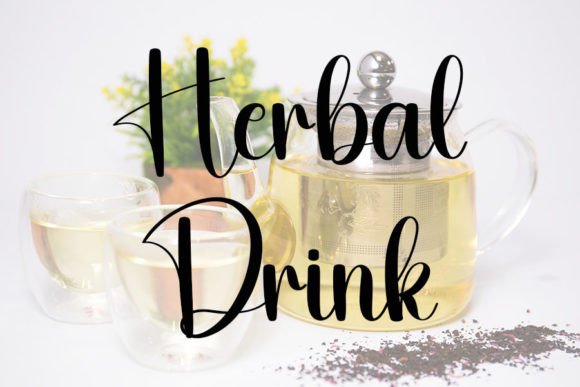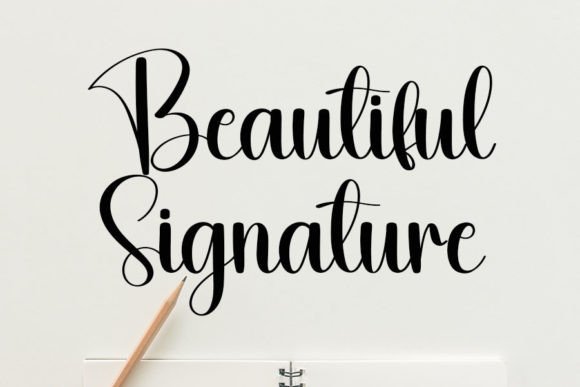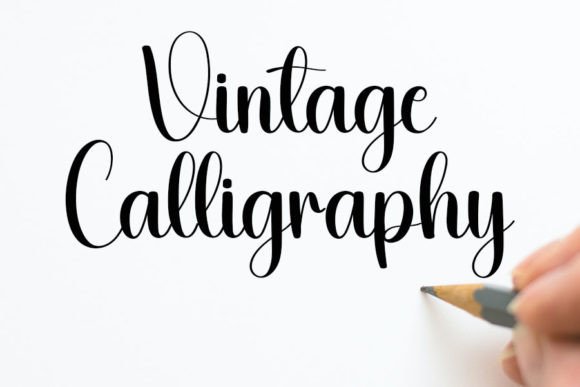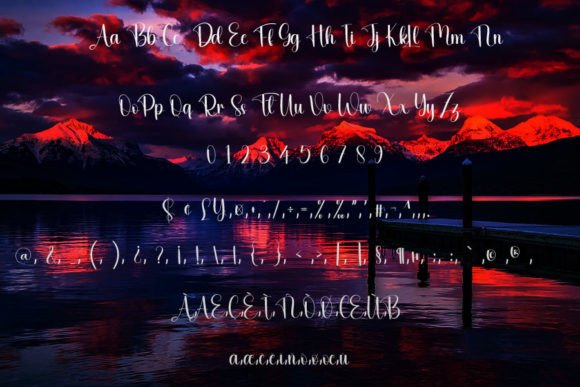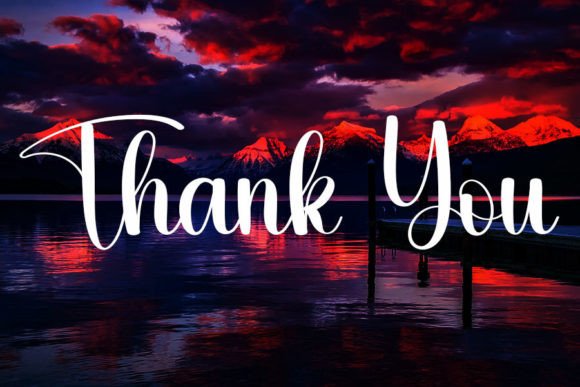
Introduction to Healing Font
Healing is a simple and friendly handwritten font.
Whether youโ€™re using it for crafts, digital design, presentations, or making greeting cards, this font has the potential to become your favorite go-to font, no matter the occasion .
Key Features of Healing Font
Why Choose Healing Font?
Healing Font offers exceptional quality and versatility, making it a valuable addition to your design toolkit. Whether you’re creating for personal projects or commercial use, Healing Font delivers professional results.